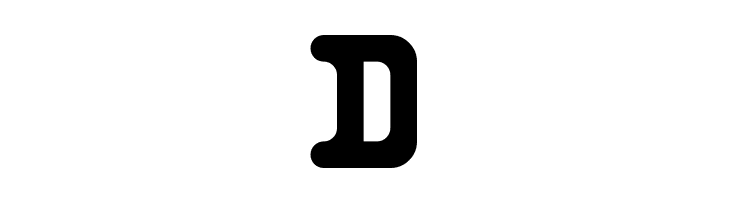
• Aircruiser Academy Laser Italic
A bold, italicized font with a futuristic, geometric design and outlined characters.
• Aircruiser Academy Laser Regular
A bold, futuristic font with geometric outlines and strong visual impact.
• Aircruiser Academy Regular
A bold, geometric font with a three-dimensional outline.
• Aircruiser Bevel
A bold, geometric font with a beveled, three-dimensional look.
• Aircruiser Bevel Italic
A bold, italicized font with a beveled, three-dimensional style.
• Aircruiser Chrome
A bold, futuristic font with a chrome-like, layered design.
• Aircruiser Chrome Italic
A bold, italicized font with a futuristic chrome effect and dynamic lines.
• Aircruiser Condensed
A bold, geometric, and condensed font with a futuristic and industrial aesthetic.
• Aircruiser Condensed
A bold, geometric, and condensed font with a futuristic and industrial style.
• Aircruiser Condensed Italic
A bold, italicized, and condensed font with a modern, dynamic style.
• Aircruiser Condensed Italic
A bold, italic, and condensed font with a modern, angular style.
• Aircruiser Engraved
A bold, geometric font with a 3D engraved effect, ideal for futuristic designs.
• Aircruiser Engraved Italic
A bold, italicized font with an engraved, three-dimensional style.
• Aircruiser Expanded
A bold, geometric font with a futuristic and expansive design.
• Aircruiser Expanded Italic
A bold, expanded, and italicized font with a modern, dynamic style.
• Aircruiser Expanded Italic
A bold, expanded, and italic font with a modern, dynamic style.
• Aircruiser Gradient
A bold, futuristic font with a gradient effect created by horizontal lines.
• Aircruiser Gradient
A bold, futuristic font with a gradient effect created by horizontal lines.
• Aircruiser Gradient 3D Italic
A bold, 3D gradient italic font with a futuristic and dynamic style.
• Aircruiser Gradient 3D Regular
A bold, 3D gradient font with a futuristic and dynamic style.
• Aircruiser Gradient Italic